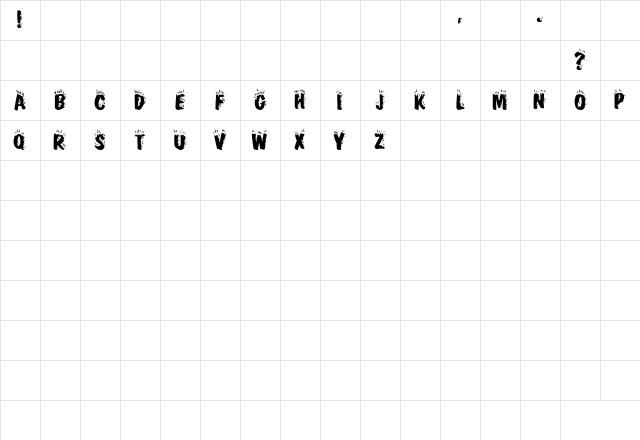
CracklingFire Regular Free Font
CracklingFire Regular
Complete CracklingFire Regular glyph index. Displaying only characters natively supported by CracklingFire Regular font.
Design Context for CracklingFire
CracklingFire is a composed and adaptable typeface that performs quietly and consistently across a wide range of design contexts.